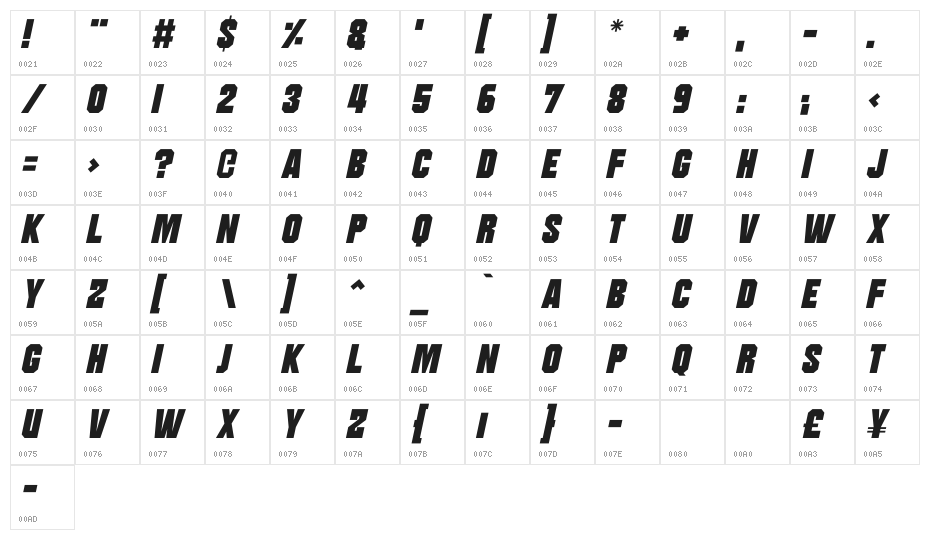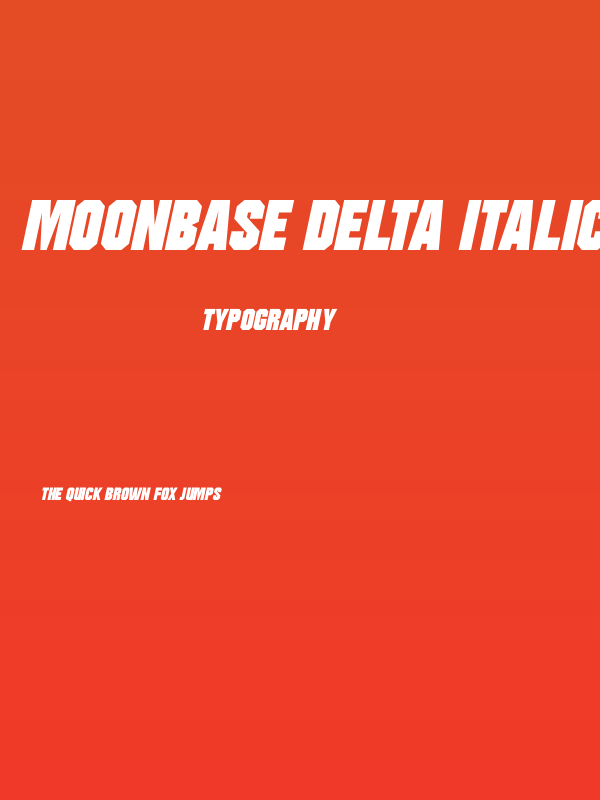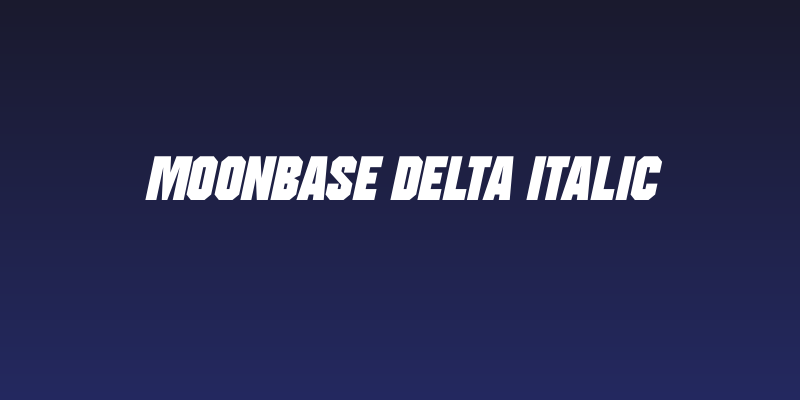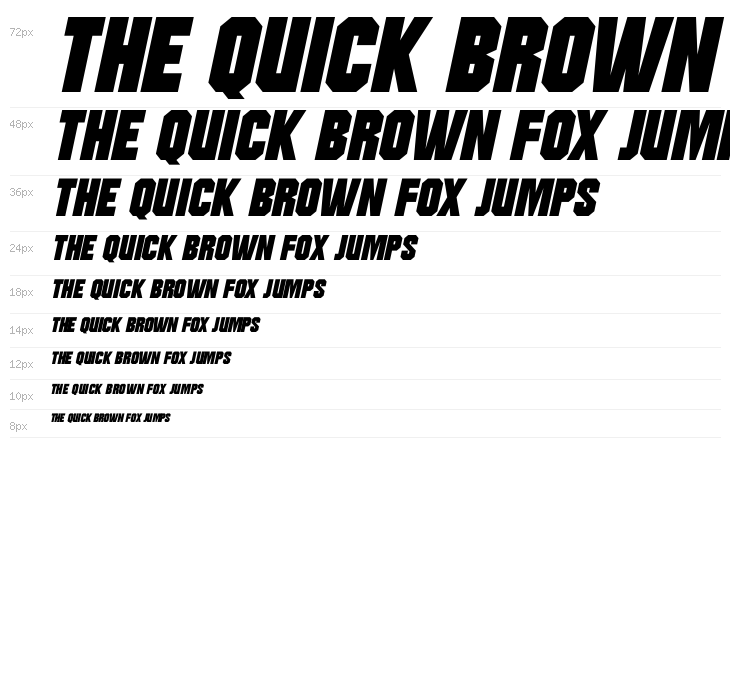
Moonbase Delta Italic Font
Moonbase Delta Italic Description
This font features a bold, italicized style with a futuristic and dynamic appearance. The characters are sharply angled and have a strong presence, making them ideal for attention-grabbing designs. The uppercase and lowercase letters maintain a consistent slant, enhancing the sense of motion and energy. The numbers and special characters are designed to match the bold aesthetic, ensuring uniformity across all text elements. The font's geometric shapes and clean lines contribute to its modern and edgy look, suitable for projects that require a standout typeface.
| Proposed Projects | Ideal for sports branding, sci-fi themed designs, video game titles, and dynamic posters. |